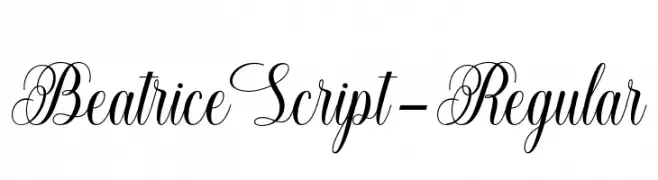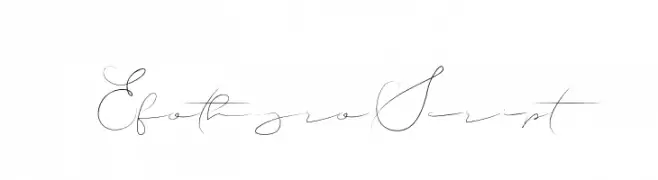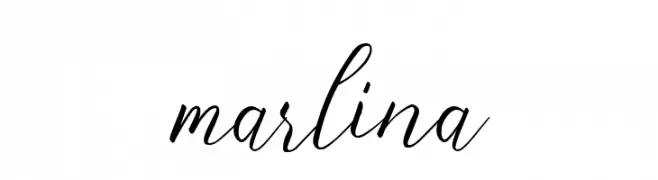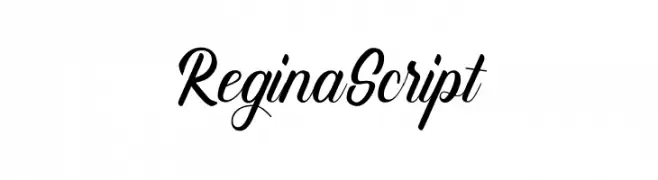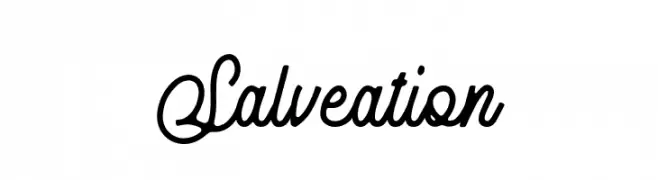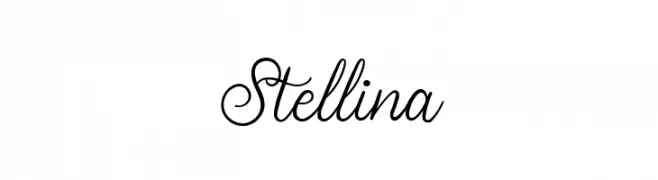
An elegant script font with fluid, cursive strokes and sophisticated flourishes.
An elegant and sophisticated script font with flowing, cursive letters.
A sophisticated script font with elegant loops and swashes.
An elegant script font with flowing, cursive letterforms and intricate flourishes.
A delicate and flowing script font with elegant, cursive letterforms.
An elegant script font with flowing, cursive letters and a sophisticated appearance.
An elegant and flowing script font with refined cursive letters.
An elegant and sophisticated script font with flowing cursive letters.
An elegant script font with intricate loops and flourishes, perfect for formal occasions.
A flowing, cursive script font with elegant, connected letters.